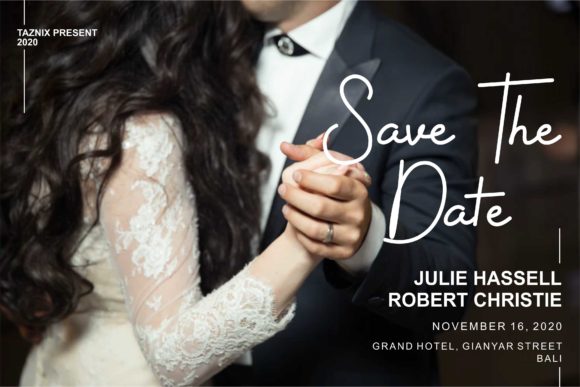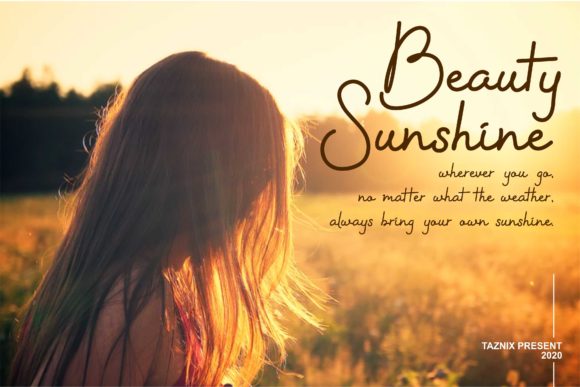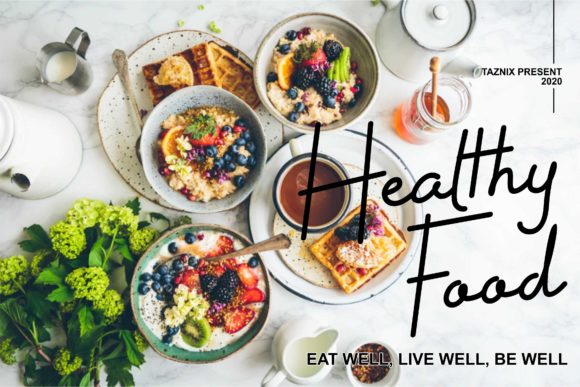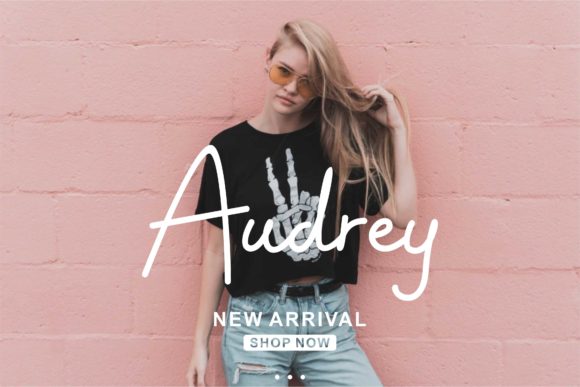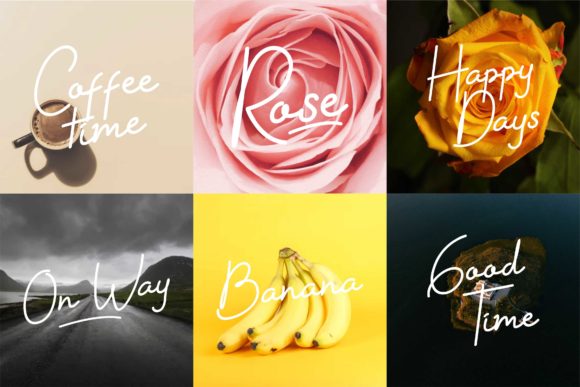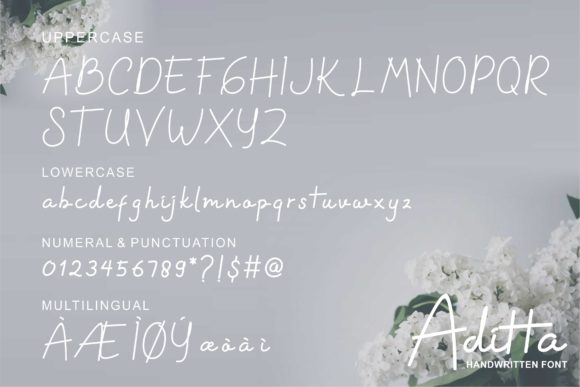
The Elegant Aditta Font: A Designer’s New Best Friend
I still remember the design project that led me to discover the stunning Aditta font. I was working on a branding project for a luxury stationery brand, and I was struggling to find the perfect font that exuded elegance and sophistication. The client wanted a font that was both classic and modern, and I was on a mission to find it. That’s when I stumbled upon Aditta, and it instantly became my go-to font for the project.
Aditta simplifies elegance into one truly outstanding handwritten font. It maintains its classy calligraphic influences while feeling contemporary and fresh. This versatility will appeal to a wide range of crafty ideas, from letterheads and titles, to stationery. Use this gorgeous and unique font to bring any DIY project to life!
An Honest Review of Aditta Font
What I Love About Aditta ✨
• ✅ Elegant and sophisticated design
• ✅ Highly versatile and adaptable to various design projects
• ✅ Beautiful calligraphic influences
• ✅ Fresh and modern feel
• ⚠️ Limited availability of stylistic alternates
• ⚠️ May not be suitable for body text due to its elegant and decorative nature
The Story Behind Aditta Font
Aditta was designed by a team of talented typographers who aimed to create a font that would simplify elegance into a single, outstanding design. Inspired by traditional calligraphy, Aditta combines classic elements with modern twists to create a truly unique and versatile font.
Q: What is Aditta font best used for?
A: Aditta font is best used for designs that require elegance and sophistication, such as luxury branding, stationery, and titles.
Q: Is Aditta font suitable for body text?
A: No, Aditta font is not suitable for body text due to its elegant and decorative nature. It’s best used for headings and titles.